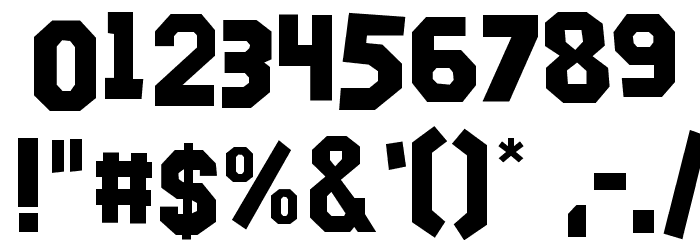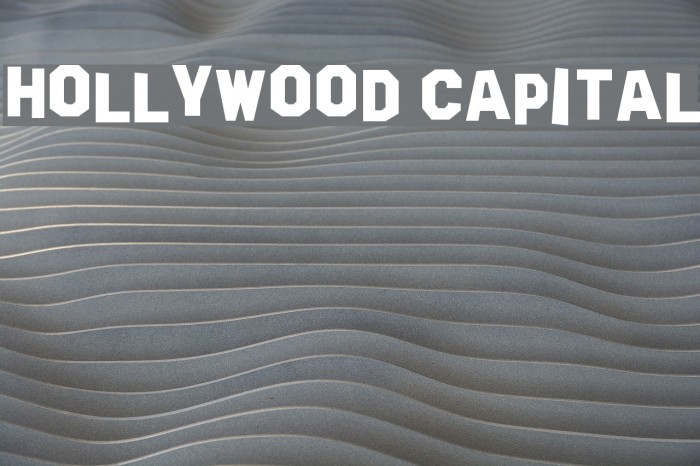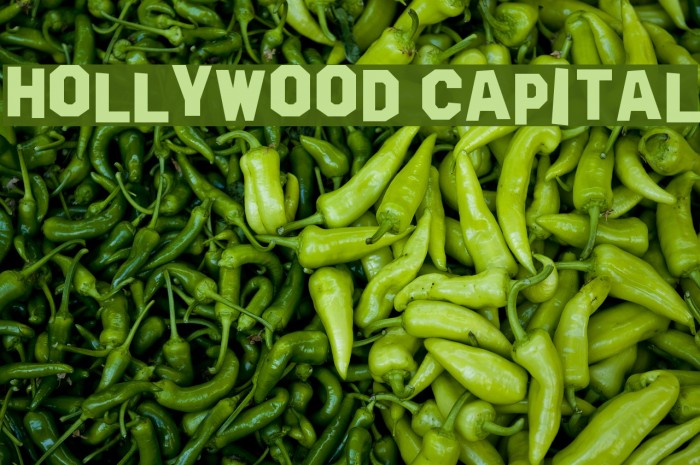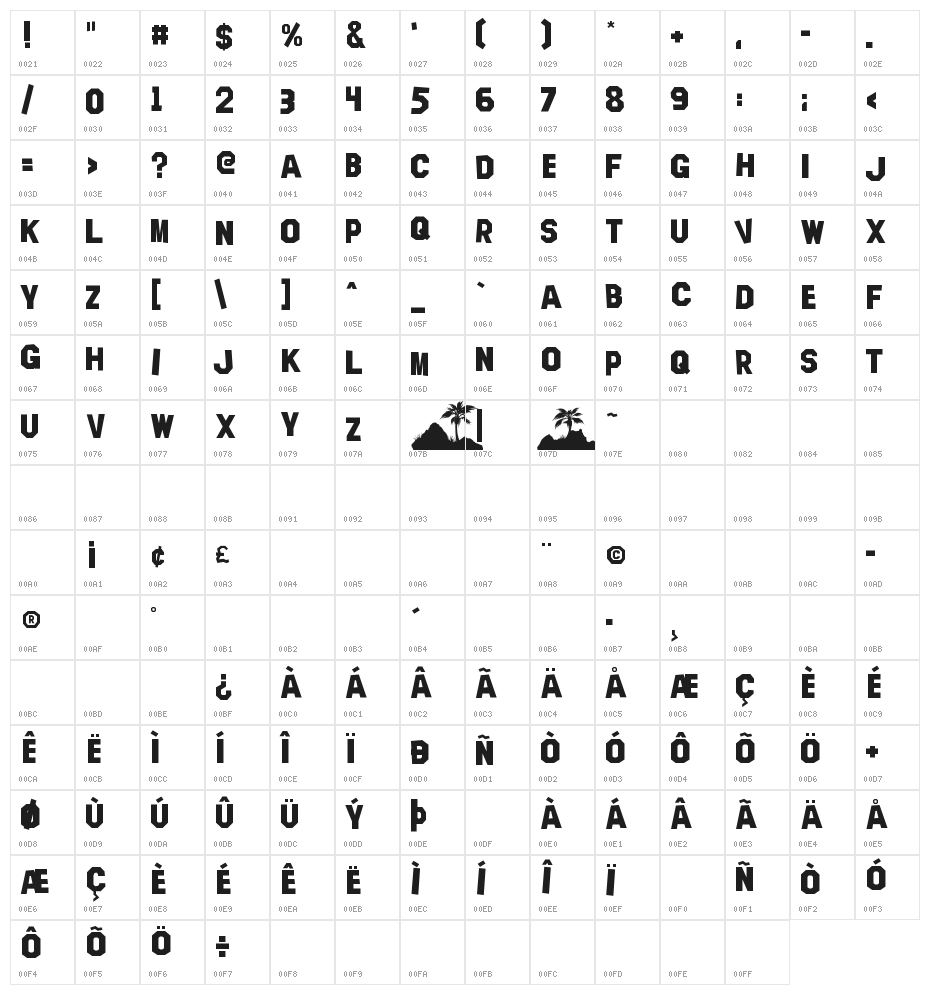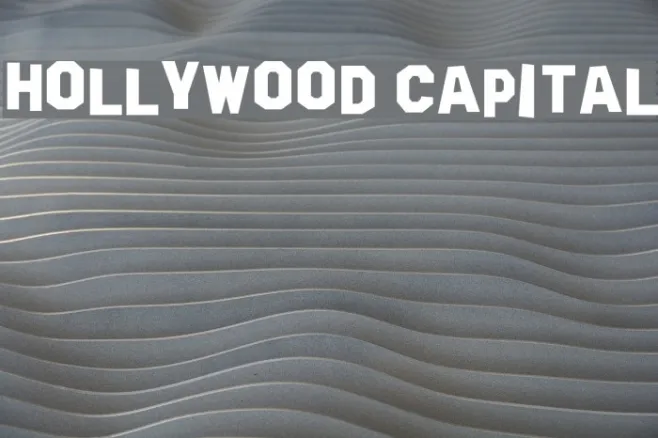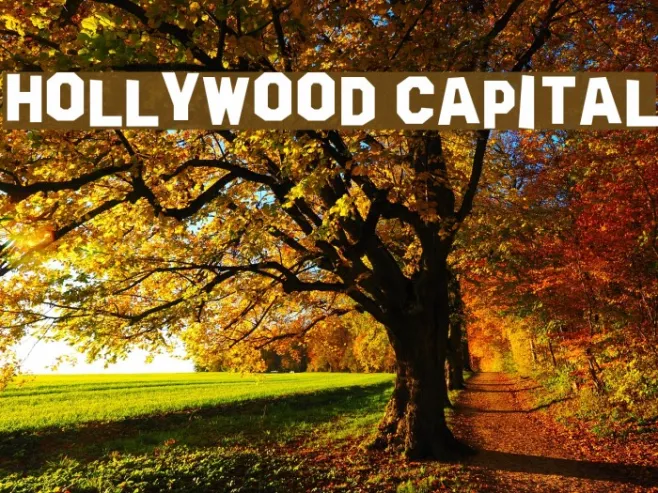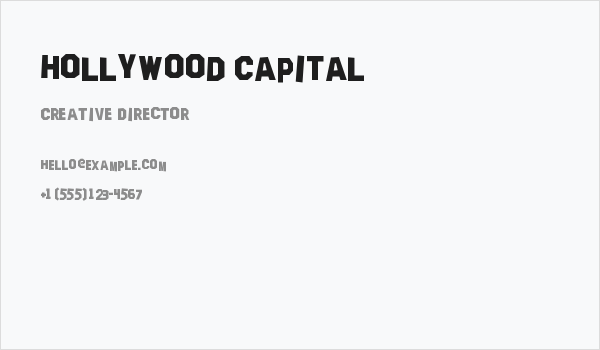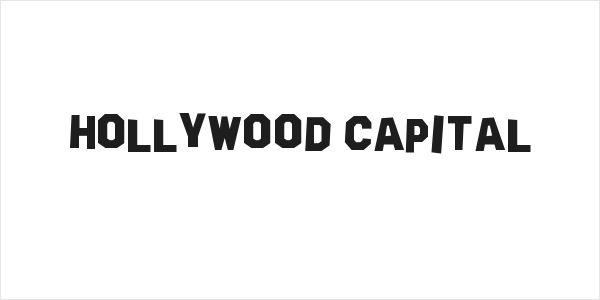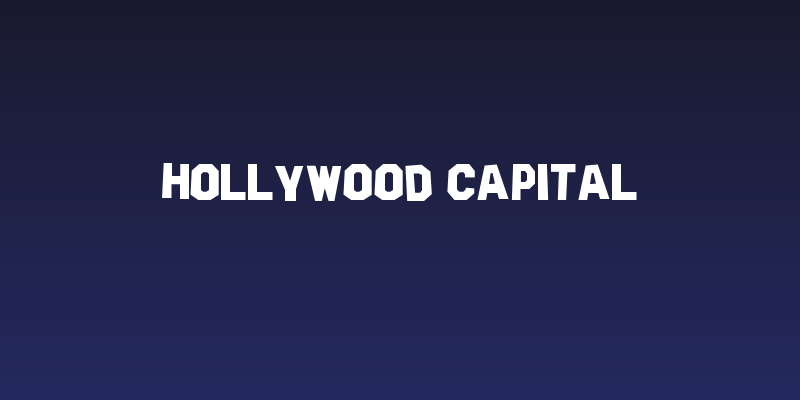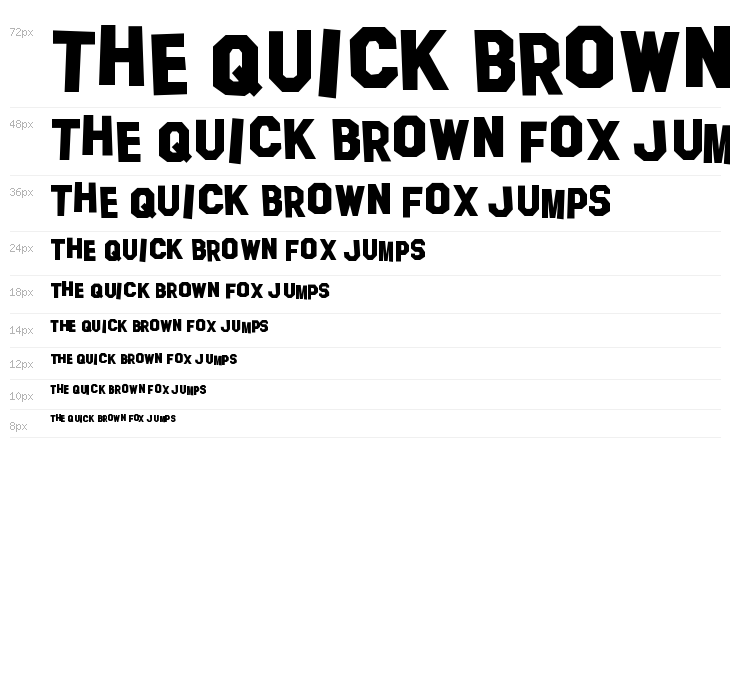
Hollywood Capital Font
This font features a bold, geometric style with a strong presence. The characters are blocky and angular, giving them a modern and assertive look. The uppercase and lowercase letters maintain a consistent weight, providing a uniform appearance. Numbers and special characters follow the same bold design, ensuring cohesion across all elements. The font's design is reminiscent of vintage signage, yet it retains a contemporary edge, making it versatile for various applications.
Bold, geometric font with a modern, assertive style.
- Proposed Projects: Ideal for branding, posters, headlines, and any project requiring a strong visual impact.